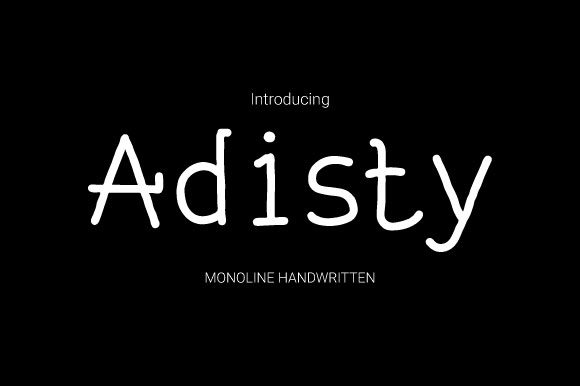
Introducing Adisty Font: The Perfect Blend of Simplicity and Quirkiness
Are you a designer or crafter looking for a font that can add a touch of personality to your projects? Look no further than Adisty Font! This simple and neat lettered handwritten font is designed to bring a friendly and quirky vibe to your designs, making it perfect for a wide range of creative endeavors.
What Makes Adisty Font Special?
Adisty Font is a unique and versatile font that stands out from the crowd. Its simplicity and neatness make it easy to read and understand, while its friendly and quirky style adds a touch of whimsy to any design. Whether you’re working on a logo, branding, packaging, or social media graphics, Adisty Font is sure to make your project stand out.
Key Features of Adisty Font
- Simple and Neat: Adisty Font features clean and simple lettering that is easy to read and understand.
- Handwritten Style: The font has a friendly and approachable handwritten style that adds a touch of personality to any design.
- Quirky and Playful: Adisty Font has a bit of a quirky edge, making it perfect for designs that require a touch of whimsy.
- Versatile: The font is suitable for a wide range of designs, from logos and branding to packaging and social media graphics.
Why Choose Adisty Font?
There are many fonts available, but Adisty Font stands out from the rest. Here are just a few reasons why you should consider choosing Adisty Font for your next project:
- Unique Style: Adisty Font has a unique and distinctive style that will set your design apart from the crowd.
- Ease of Use: The font is easy to read and understand, making it perfect for designs that require clear communication.
- Flexibility: Adisty Font can be used for a wide range of designs, from formal to informal, making it a versatile addition to your font library.
How to Use Adisty Font in Your Designs
Adisty Font is easy to use and can be incorporated into your designs in a variety of ways. Here are a few ideas to get you started:
- Logos and Branding: Use Adisty Font to create a unique and memorable logo that reflects your brand’s personality.
- Packaging: Add a touch of whimsy to your packaging designs with Adisty Font.
- Social Media Graphics: Use Adisty Font to create eye-catching social media graphics that will help your brand stand out.
- Invitations and Stationery: Add a personal touch to your invitations and stationery with Adisty Font.
Tips for Getting the Most Out of Adisty Font
Here are a few tips to help you get the most out of Adisty Font:
- Experiment with Colors: Adisty Font looks great in a variety of colors, so don’t be afraid to experiment and find the perfect hue for your design.
- Play with Pairings: Adisty Font pairs well with a range of other fonts, so try pairing it with different fonts to create a unique look.
- Use it Sparingly: Adisty Font is a statement font, so use it sparingly to add emphasis and personality to your design.
Adisty Font is a simple and neat lettered handwritten font that is perfect for designers and crafters looking to add a touch of personality to their projects. Its friendly and quirky style makes it versatile and easy to use, and its unique style is sure to set your design apart from the crowd. Whether you’re working on a logo, branding, packaging, or social media graphics, Adisty Font is a great choice. So why not give it a try and see the difference it can make in your designs?